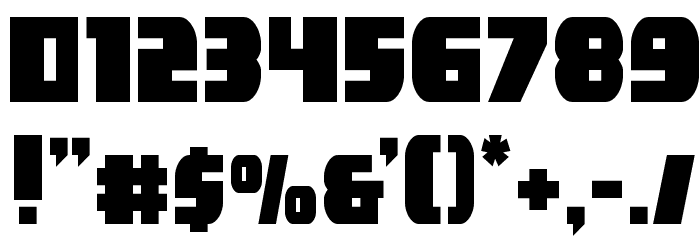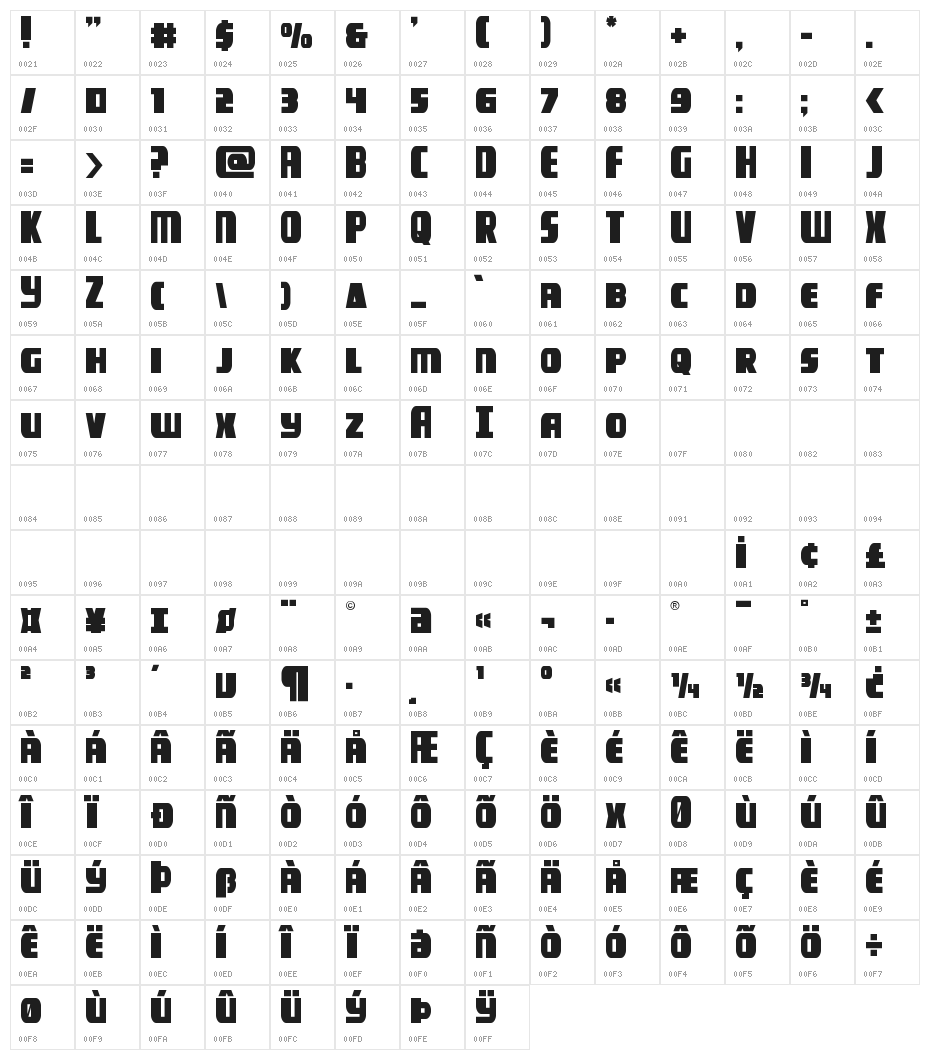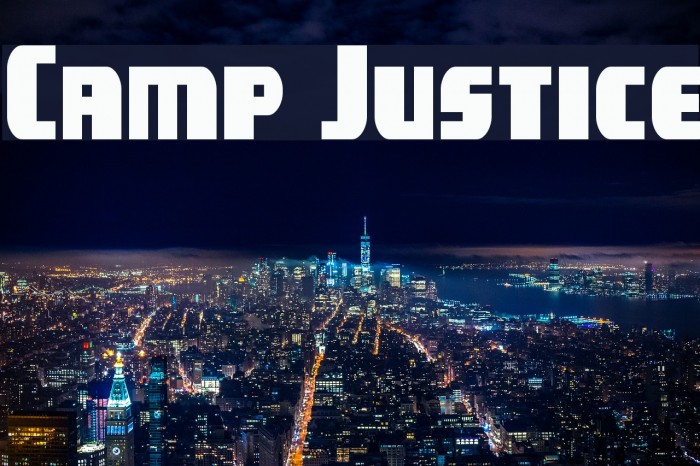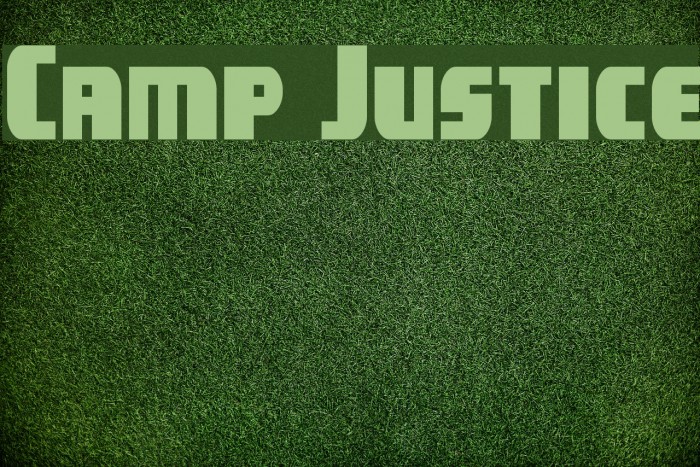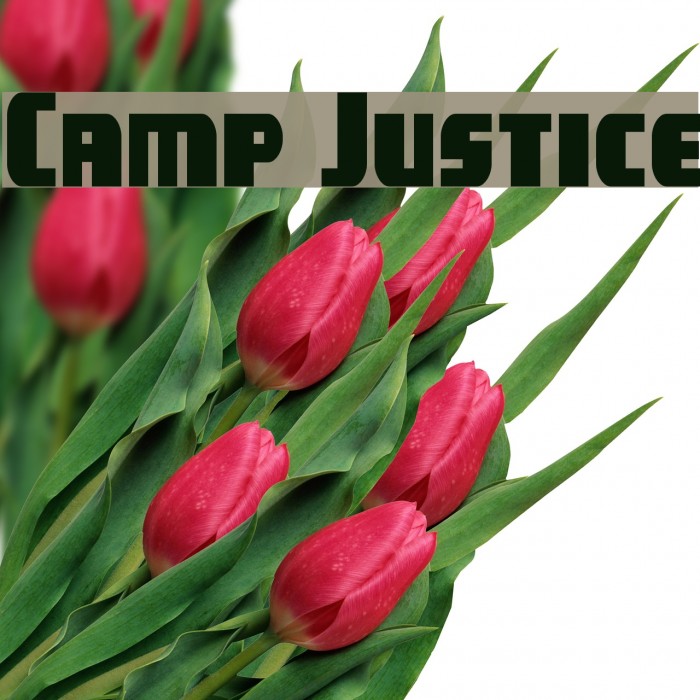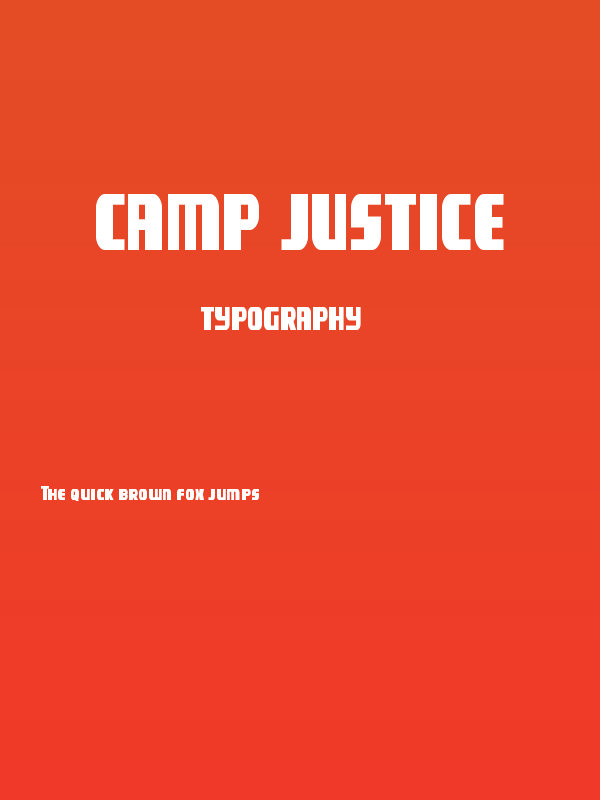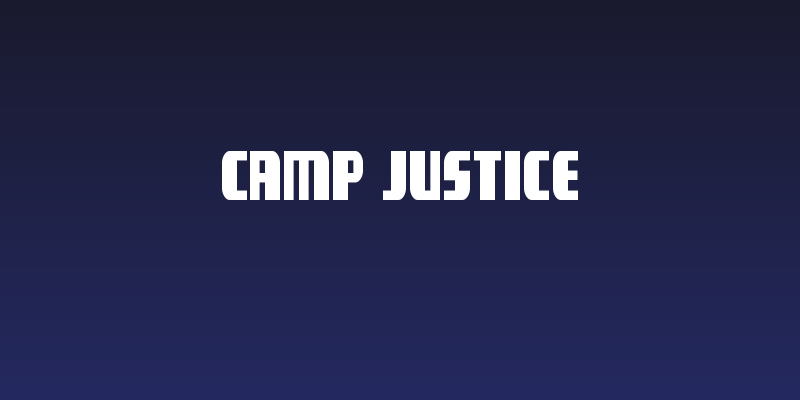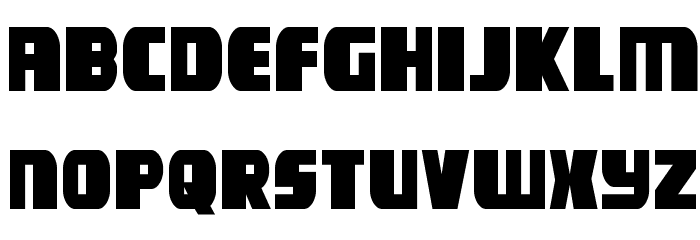
Camp Justice Font
This bold, geometric font features strong, block-like characters with a modern and assertive appearance. The uppercase letters are uniform in height, with a consistent stroke width that conveys a sense of stability and strength. The lowercase letters maintain the same boldness, ensuring readability and impact. Numbers and special characters are designed to match the robust style, making them suitable for attention-grabbing displays. The font's clean lines and lack of serifs give it a contemporary feel, ideal for projects that require a powerful and confident visual statement.
A bold, geometric font with a modern and assertive style.
• Proposed Projects: Ideal for branding, posters, headlines, and any design requiring a strong visual impact.
• Category: Sans-Serif
• Bold: Yes
• Italic: No
• Weight: Bold
• Width: Normal
• Character Spacing: Normal
• Contrast: Low
• Overall Style: Modern
• Use Case: Headlines, Logos, Posters